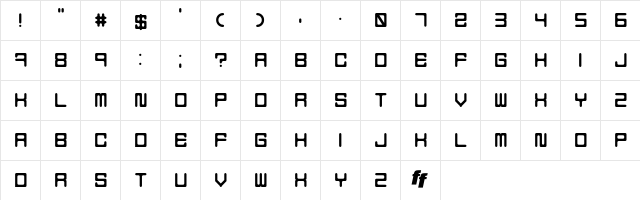
Holodeck5 Regular
Design Context for Holodeck5 Typeface
Holodeck5 offers clean, dependable letterforms without strong stylistic allegiance, making it a practical choice for designers who need flexibility.